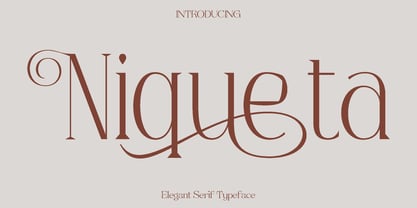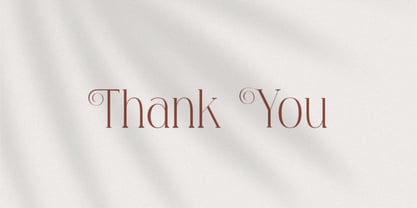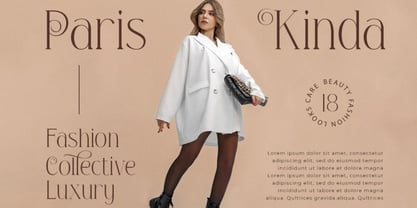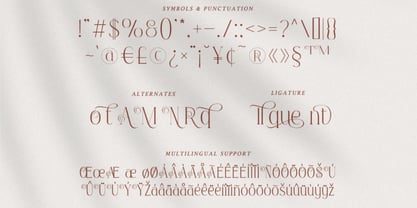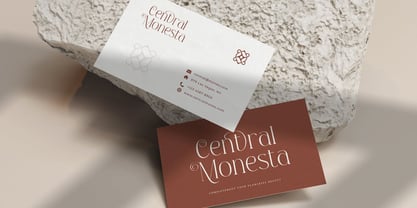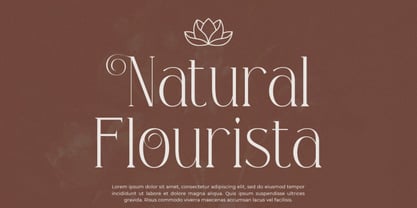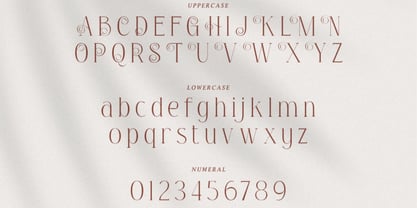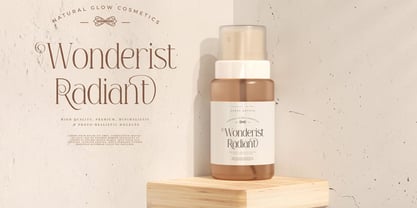
Niqueta
by Only Fonts
The Niqueta Font Family was designed by Olivia Love and published by Only Fonts. Niqueta contains 1 styles. More about this family
Niqueta – Elegant Contemporary Serif Niqueta is a refined serif font that gracefully bridges classic typographic tradition with modern design sensibility. Inspired by timeless editorial lettering and sophisticated branding aesthetics, Niqueta is crafted to deliver elegance with subtle confidence. Its smooth curves, balanced proportions, and delicate details create a polished appearance that feels both luxurious and approachable. Designed for versatility, Niqueta excels across a wide range of creative applications. It works beautifully for branding, logo design, editorial layouts, wedding stationery, packaging, and refined digital content. Whether used for bold headlines or understated body text, Niqueta maintains excellent readability while adding a touch of sophistication. The font brings a calm and graceful tone that enhances the overall visual harmony of any composition. Niqueta feels elegant, soft, and timeless, making it ideal for designers who want to create an elevated yet understated look. Its thoughtful design allows it to adapt seamlessly to both modern and classic projects, helping your work stand out with a refined and professional finish. Niqueta Font Features: • Uppercase and lowercase • Symbols and punctuation • Numerals • Ligatures • Alternate characters • Multilingual support Niqueta is the perfect choice for creating designs that feel graceful, stylish, and effortlessly sophisticated, making it an excellent addition to any designer's toolkit.
Designers: Olivia Love
Foundry: Only Fonts